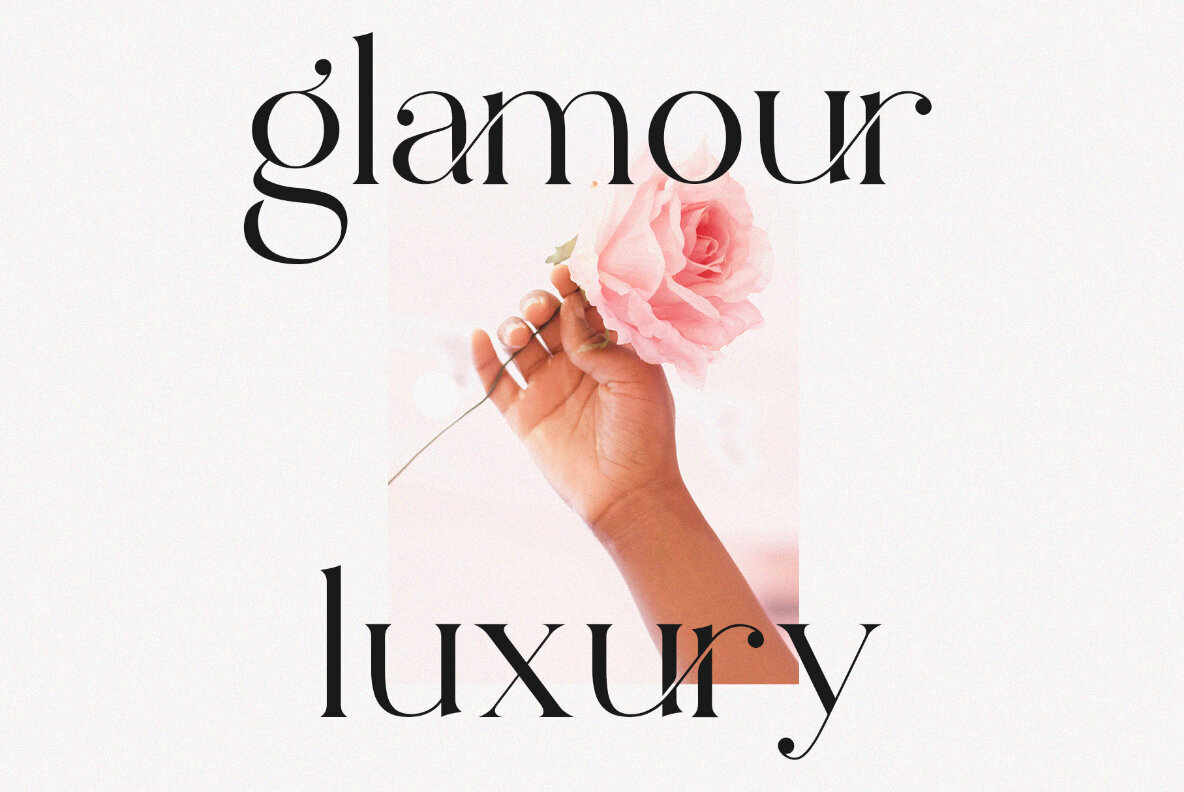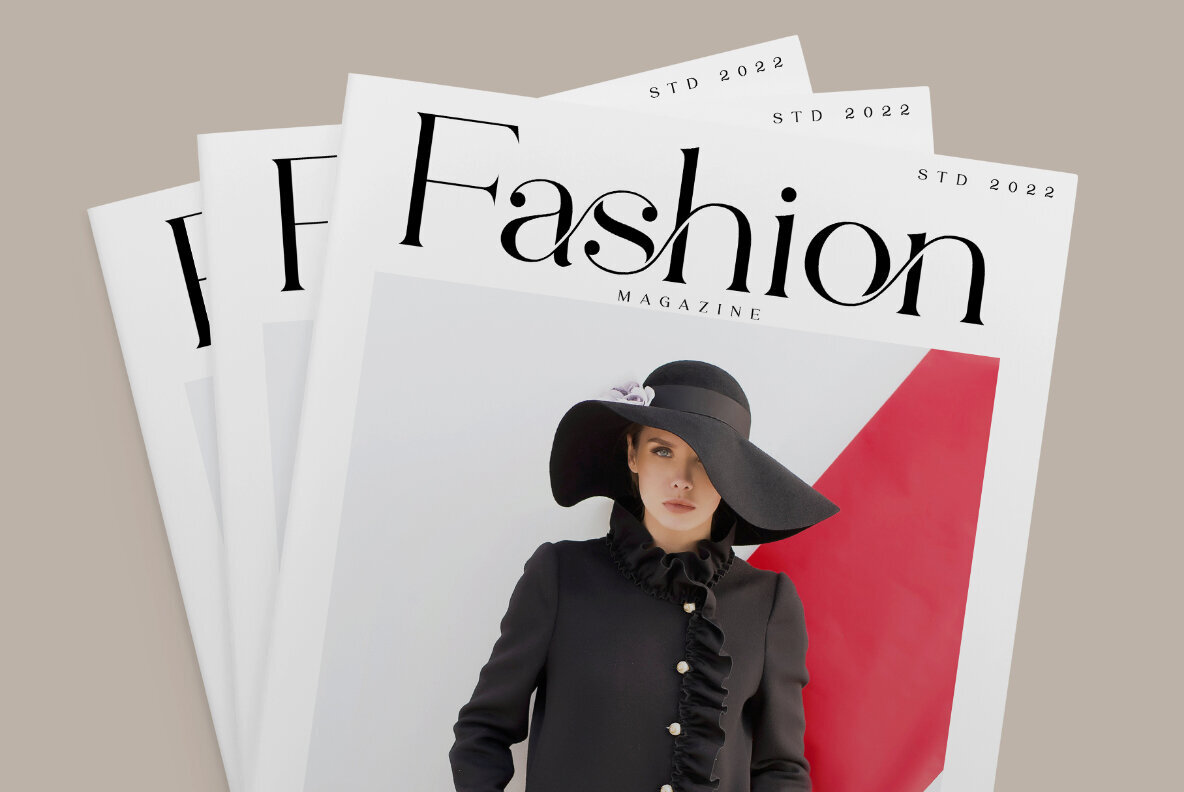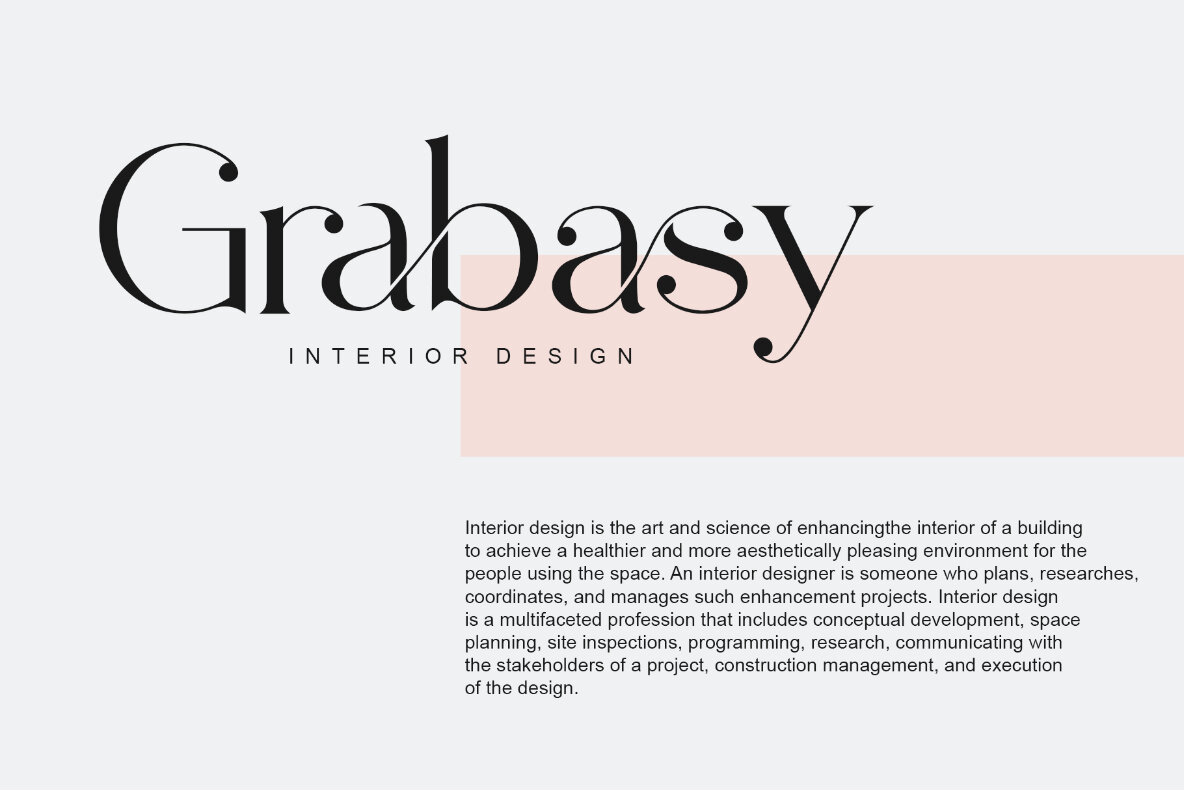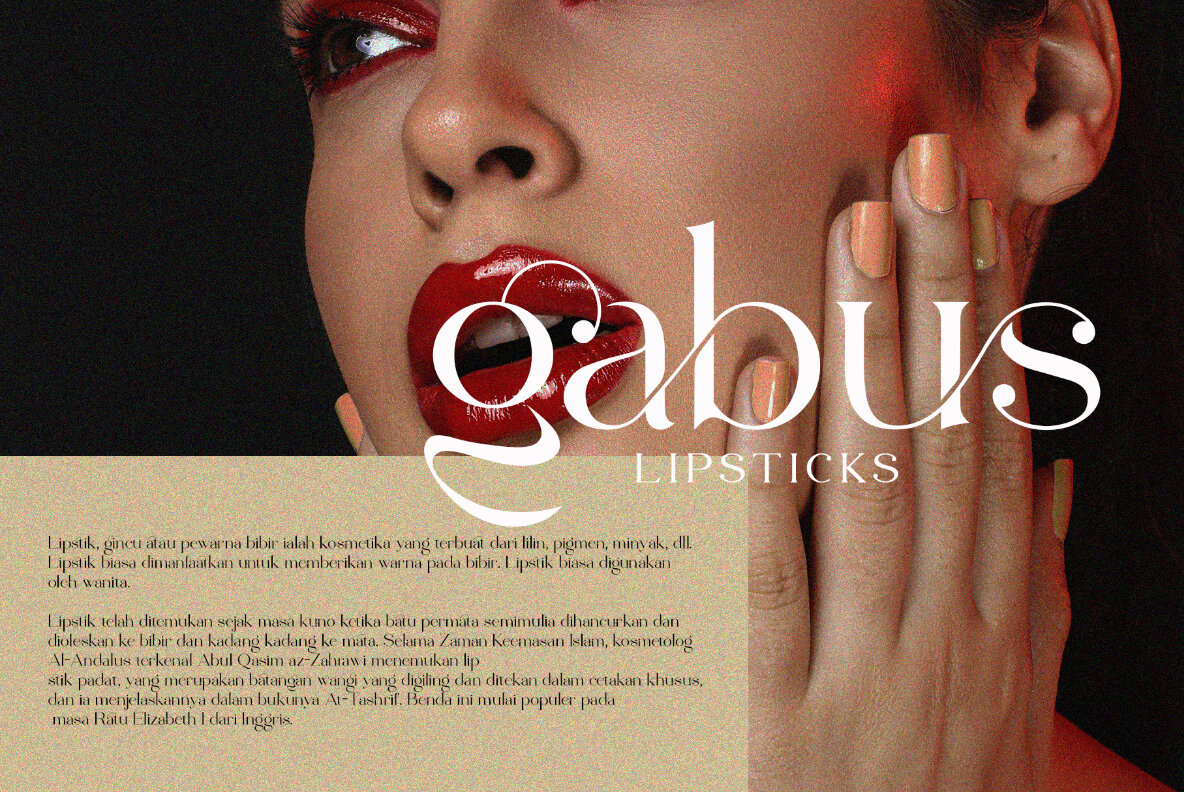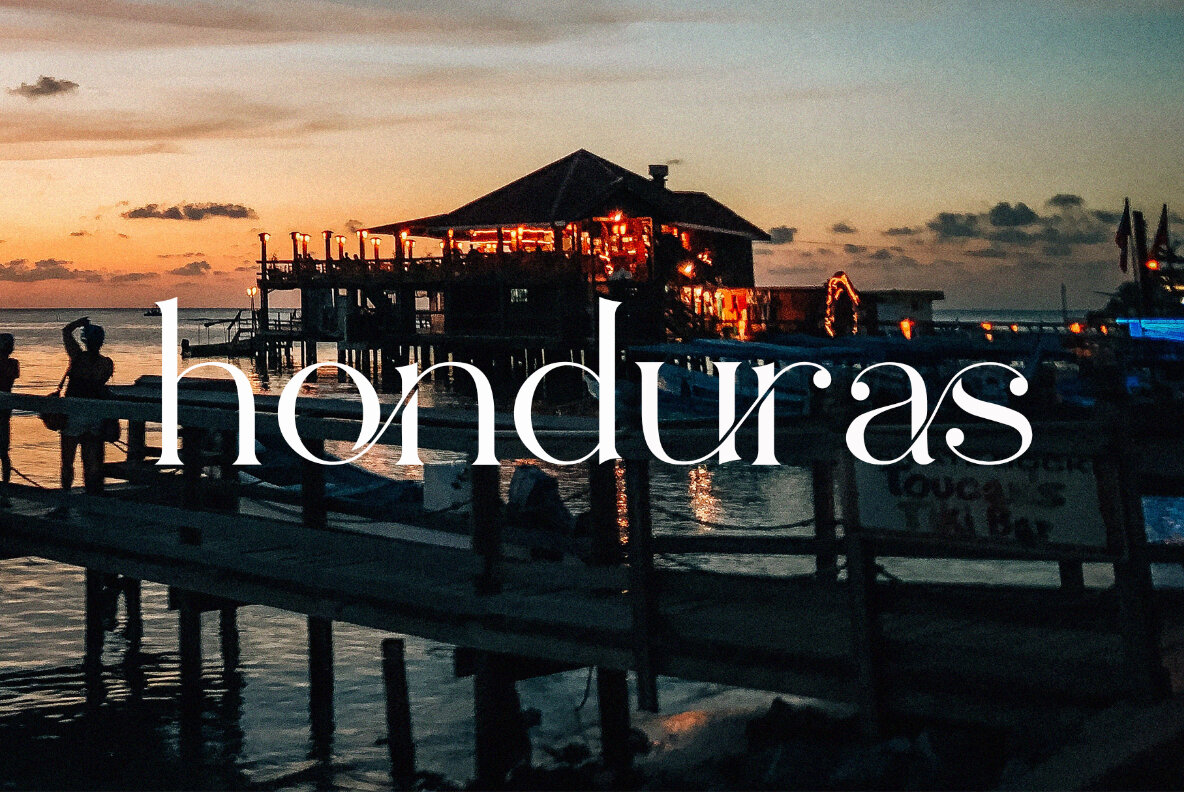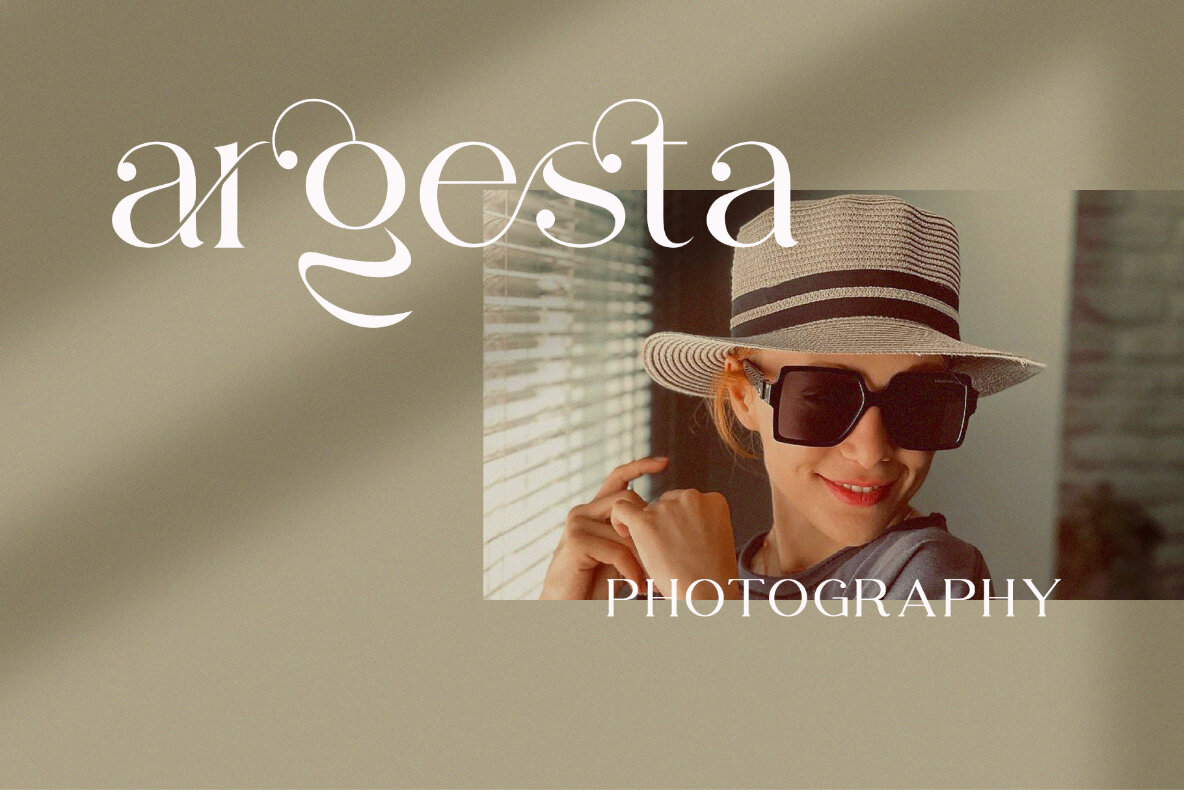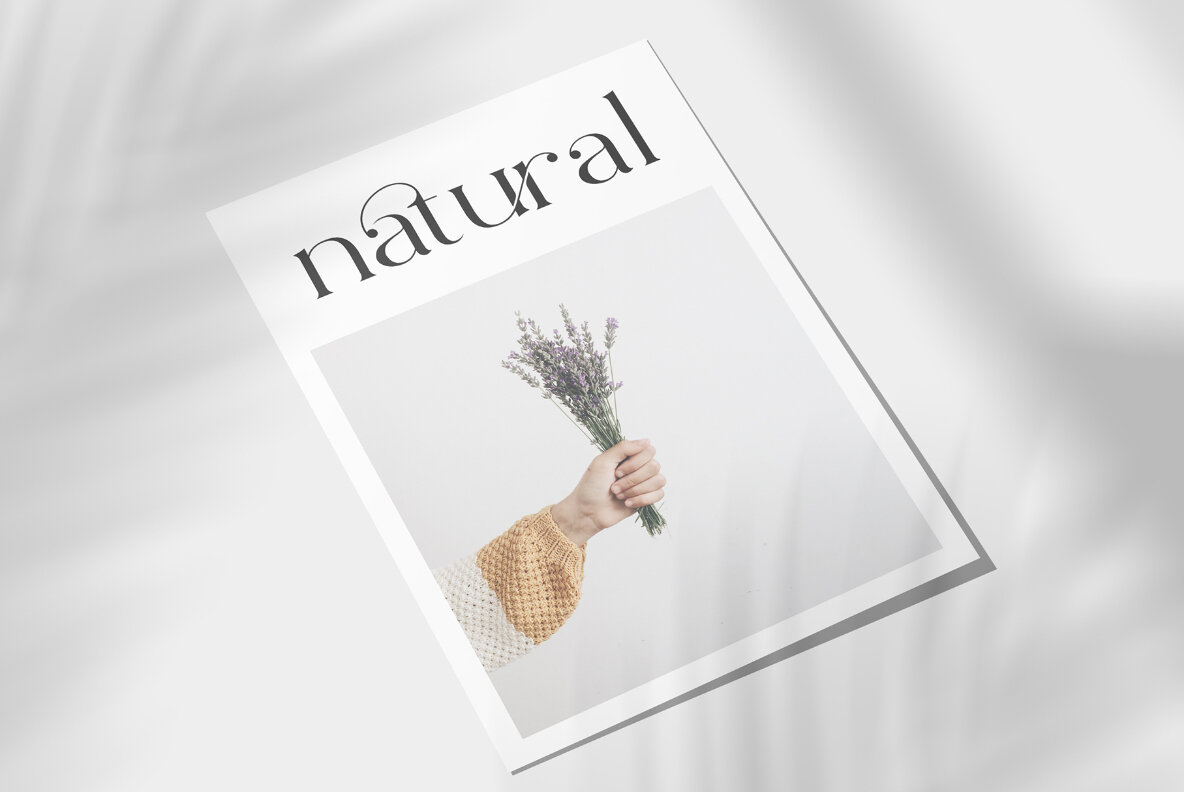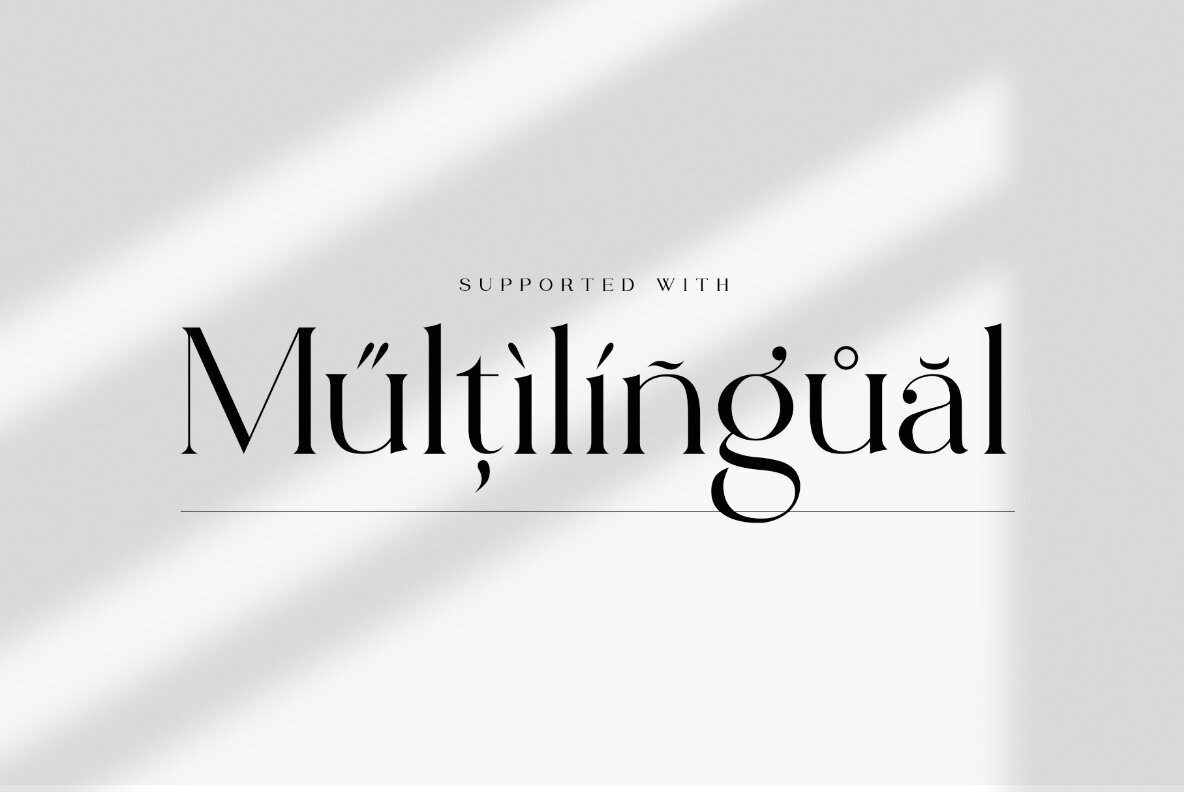
Asbigan Font
Asbigan
Asbigan is a beautifully crafted font tailored for brand and logo design. It combines elegance and uniqueness, making it an ideal choice for creating distinctive visual identities. To access the ligature characters, open the glyphs panel in your design software. In Adobe Photoshop, navigate to Window and select Glyphs. In Adobe Illustrator, go to Type and choose Glyphs.Asbigan: Elegant Font for Branding and Logo Design
Features of Asbigan